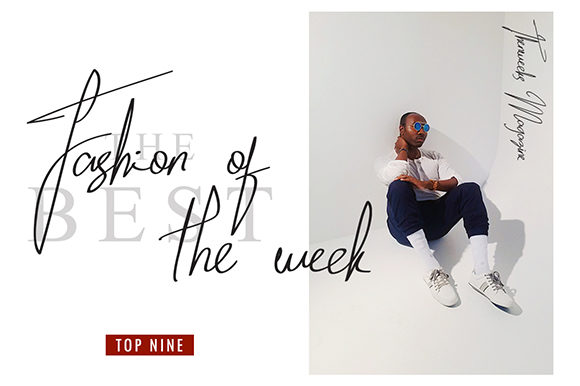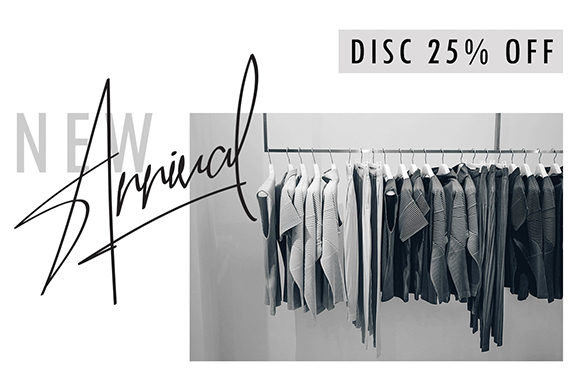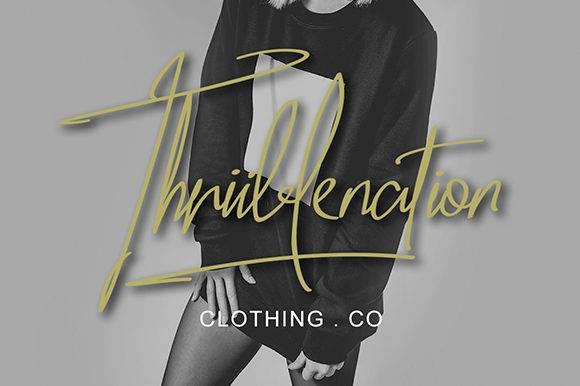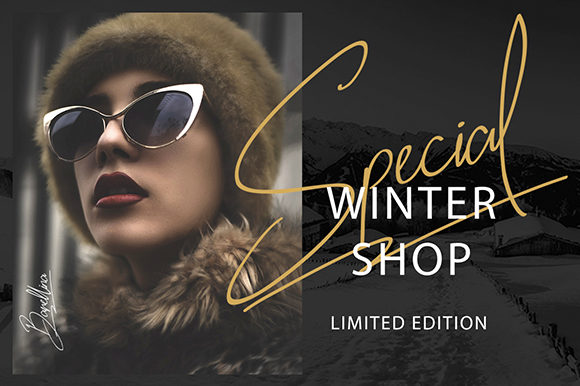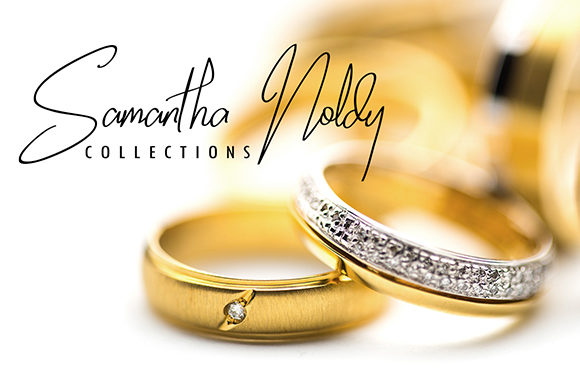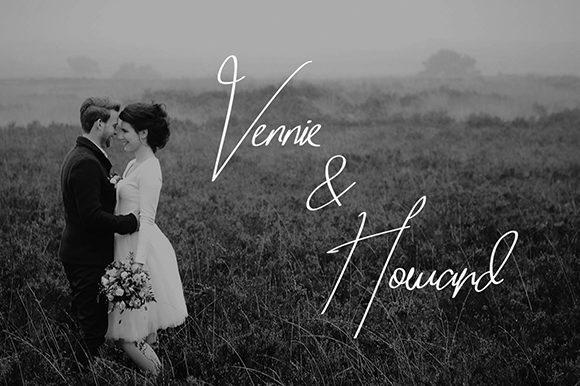
Discover the Magic of Charlotie Font
Have you ever been stuck on a design project, staring at a blank canvas, searching for the perfect font to bring your vision to life? That’s exactly where I was when I stumbled upon the enchanting Charlotie Font. Its whimsical charm and elegant flair instantly captured my heart, and I knew I had to learn more.
Charlotie Font is a beautifully crafted, handwritten font that exudes a natural writing style. With its latest update, it now boasts stunning swashes that add an extra touch of sophistication and personality to any design. Whether you’re creating logos, printed quotes, invitations, or posters, Charlotie Font is the perfect companion to help you bring your ideas to life.
Charlotie Font Key Features
- Unique Characteristics: Charlotie Font features a unique blend of modern and vintage elements, with intricate details and ornate flourishes.
- Font Style: Charlotie Font is available in a range of styles, including Regular, Italic, Bold, and Bold Italic, allowing for flexible design options.
Designer Review: Charlotie Font
Overall, I found the Charlotie font to be quite charming and versatile. ✨ Its elegant script style makes it perfect for adding a touch of sophistication to any design project. The font is well-suited for use in headings, titles, and even short paragraphs of text.
One of the things that I particularly like about Charlotie is its wide range of language support. ✨ This makes it a great option for designers working on international projects. Additionally, the font is available in various weights, from light to bold, which allows for a good amount of flexibility in terms of text styling.
- ⚠️ Charlotie may not be the best choice for body text, as its script style can be difficult to read in large quantities.
- ⚠️ The font may not be as effective in very small sizes, as the details of the script style can get lost.
- ⚠️ Some users may find the font’s ligatures and swashes to be too ornate or distracting.
In conclusion, Charlotie is a beautiful and well-designed font that is perfect for adding a touch of elegance to any design project. While it may have some limitations, its strengths far outweigh its weaknesses, making it a great addition to any font collection.
Getting the Most Out of Charlotie Font
To get the most out of the Charlotie font, try combining it with bold or italic styles for emphasis. You can also use it for titles, headings, or short paragraphs of text. Experiment with different font sizes and styles to achieve the desired look.
Alternatives to Charlotie Font
Oswald
Oswald is a sans-serif font designed by Vernon Adams. It’s ideal for use in headings and titles, particularly in digital designs. Oswald has a more geometric and modern feel compared to Charlotie Font, which has a more elegant and refined look. Oswald is suitable for use in logos, titles, and headings in digital media.
Lato is a sans-serif font designed by Łukasz Dziedzic. It’s a versatile font suitable for use in body text and headings. Lato has a clean and modern look, but it’s not as ornate as Charlotie Font. Lato is ideal for use in digital designs, particularly in web and mobile applications.
Montserrat is a sans-serif font designed by Julieta Ulanovsky. It’s a geometric font with a modern and urban feel. Montserrat is suitable for use in headings and titles, particularly in digital designs. Compared to Charlotie Font, Montserrat has a more industrial and modern look, making it ideal for use in logos, titles, and headings in digital media.